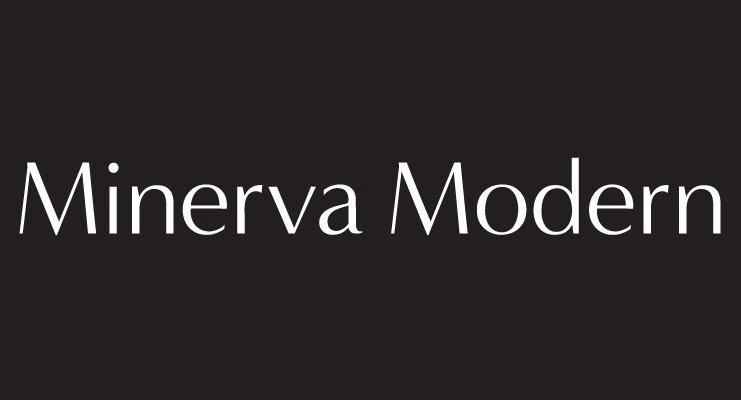
Minerva Modern Font
Minerva Modern Sans Serif Font Family was designed by Gábor Kóthay and published by T-26. You can use it as a logo, badge, insignia, packaging, headline, poster, t-shirt/apparel, greeting card, and wedding invitation.
Minerva Modern contains 6 styles and family package options.